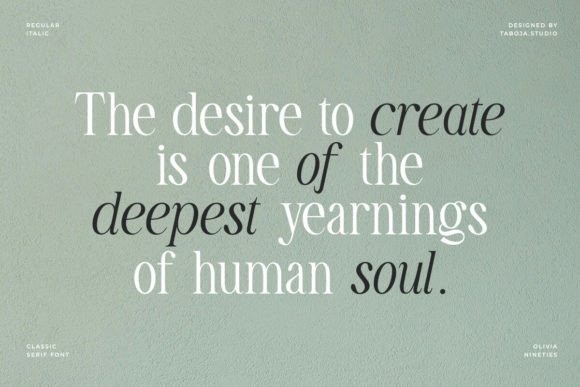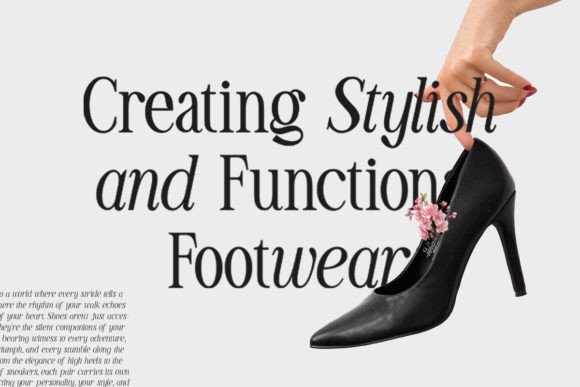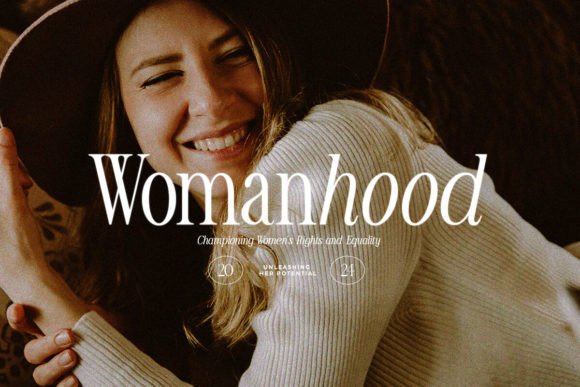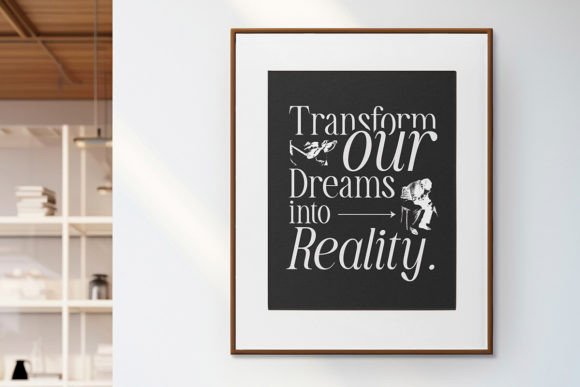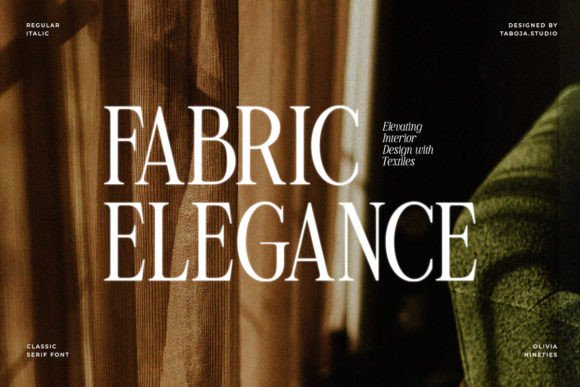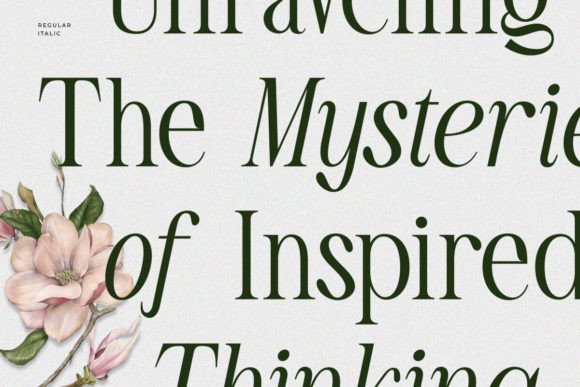
Introduction to Olivia Nineties Font
Olivia Nineties Regular Italic is a font that exudes retro charm with accents reminiscent of 1990s handwriting style.
With its light yet distinct slant, this font adds a unique and captivating touch to your designs Each letter is meticulously designed to provide a distinctive and engaging impression, making text written with Olivia Nineties Regular Italic come alive and vibrant.
Key Features of Olivia Nineties Font